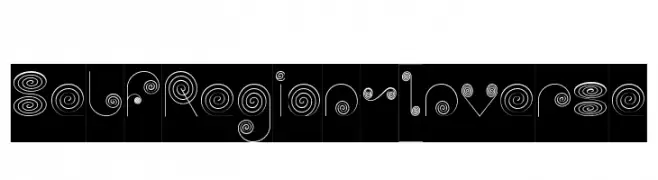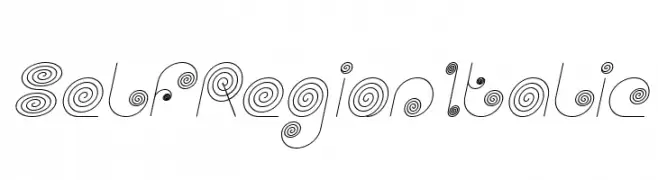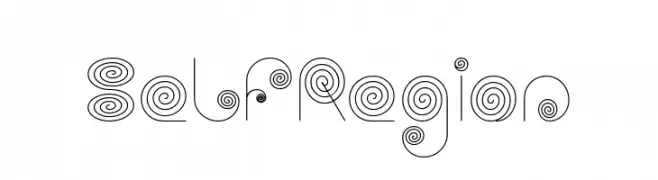
( Fonts by Saqib Ahmad )
A geometric and artistic font with circular motifs and intricate designs.
( Fonts by Tereza Cenic )
A playful, hand-drawn font with whimsical strokes and dynamic character shapes.
( Fonts by Tereza Cenic )
A playful, hand-drawn typeface with flowing strokes and exaggerated curves.
( Fonts by Trappist Monk )
A bold, angular Gothic-inspired font with intricate detailing.
( Fonts by Douglas Vitkauskas )